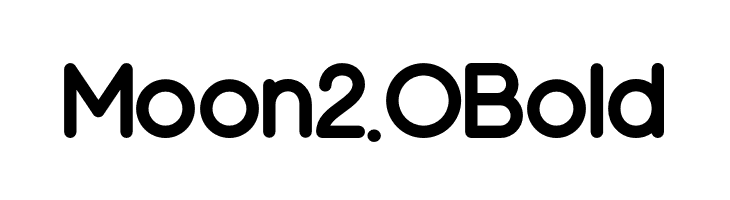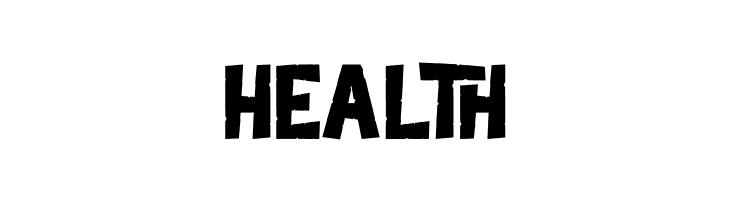
Playful handwritten font.
A modern, geometric sans-serif font with a clean and minimalistic design.
A bold, decorative font with intricate curves and flourishes.
A bold, classic serif font with playful yet elegant characteristics.
A bold, jagged font with a rugged, hand-carved appearance.
A bold, playful font with angular strokes and a dynamic slant.
A whimsical font with characters integrated into penguin illustrations, perfect for playful designs.
An elegant, flowing script font with decorative loops and a romantic style.